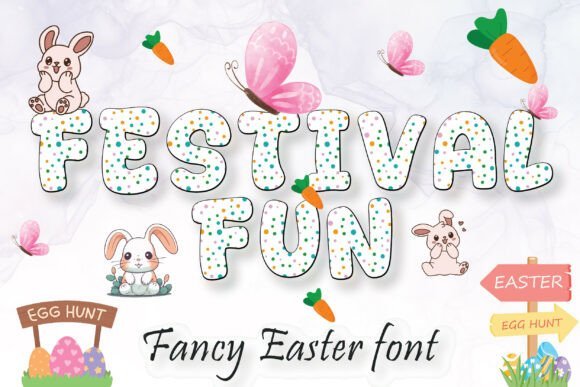
Fancy Up Your Easter Designs with the Perfect Font
As you sit down to plan your Easter celebrations, you might find yourself stuck on the perfect design for your invitations, party decorations, or social media posts. It’s that moment when you wish you had the perfect font to give your creations a playful spring touch. Well, wish no more! Introducing the Fancy Dot Easter Font, a charming alphabet featuring dotted details and a fun decorative style that’s sure to bring a smile to your face and a pop of color to your designs.
This adorable font is more than just a pretty face – it’s a valuable tool for designers looking to add a personal touch to their Easter and spring-themed projects. With its compatibility with popular design software like Adobe Illustrator, Photoshop, and Canva, you can easily incorporate the Fancy Dot Easter Font into your designs and bring them to life.
Fancy Dot Easter Font Key Features
- Character Set: 256 characters, including uppercase and lowercase letters, numbers, and special characters
- Unique Characteristics: Hand-drawn design with intricate dot patterns, perfect for Easter-themed designs and decorations
- Style Variations: Includes regular, bold, italic, and bold-italic styles for added flexibility
Fancy Dot Easter Font Review
When I first laid eyes on the Fancy Dot Easter Font, I was immediately struck by its playful and whimsical design ✨. The intricate dot patterns and delicate lines give it a charming, hand-drawn feel that’s perfect for springtime projects. The font is also surprisingly versatile, working well in a range of sizes and styles. Whether you’re creating invitations, greeting cards, or social media graphics, Fancy Dot Easter Font is sure to add a touch of festive flair ✨.
- Unique, hand-drawn design ✨
- Perfect for springtime and Easter-themed projects
- Works well in a range of sizes and styles
- Great for invitations, greeting cards, and social media graphics
- ⚠️ May be too ornate for some designs
- ⚠️ Limited character set, may not be suitable for longer texts
Overall, I’m impressed with the Fancy Dot Easter Font’s charm and versatility. While it may have some limitations, its unique design and playful feel make it a great choice for springtime projects. If you’re looking for a fun and festive font, Fancy Dot Easter Font is definitely worth considering.
Fancy Dot Easter Font Practical Application Guide
Some tips for getting the most out of Fancy Dot Easter Font include:
– Using it for titles, headings, and quotes to add a touch of whimsy.
– Combining it with other fonts for a unique and playful look.
– Experimenting with different font sizes and colors to create visual interest.
– Using it for Easter-themed designs, such as invitations, cards, and banners.
Alternatives to Fancy Dot Easter Font
Great Vibes is a beautiful, elegant script font perfect for creating a whimsical and romantic atmosphere. It’s ideal for wedding invitations, greeting cards, and other special occasions. Great Vibes has a similar feel to Fancy Dot Easter Font, but with a more sophisticated and refined look.
Pacifico is a stunning, modern script font that exudes a sense of relaxation and tranquility. It’s perfect for beach-themed designs, travel brochures, and other projects that require a carefree and laid-back vibe. While Pacifico has a similar relaxed feel to Fancy Dot Easter Font, it’s more modern and sleek in its design.